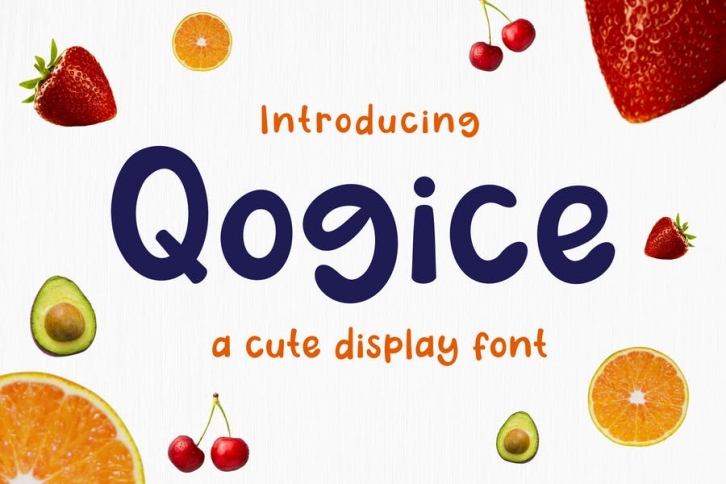
Introducing our new product Qogice Font - Modern Font
Qogice Font - Modern Font is a bold and authentic display font. The font is suitable for any branding project like logo, t-shirt printing, esport, and many more. outstanding in a wide range of contexts.